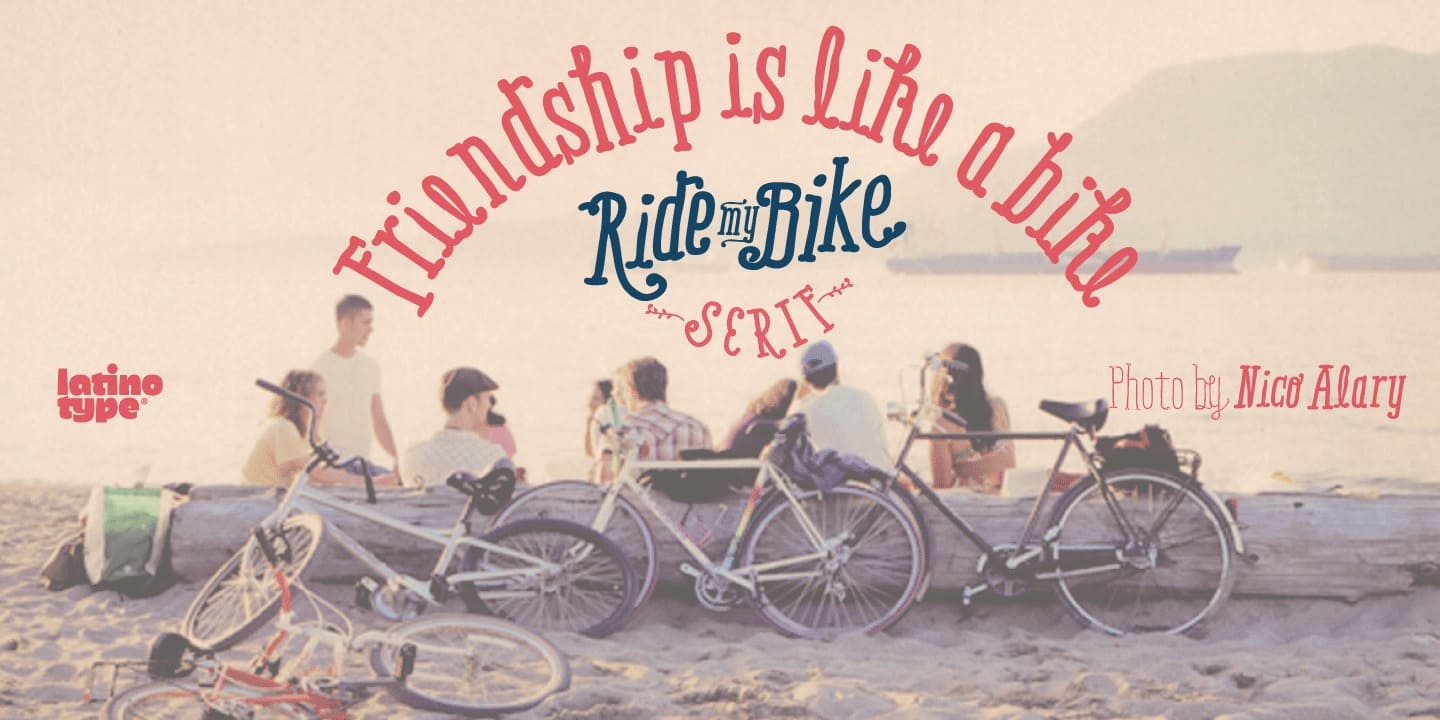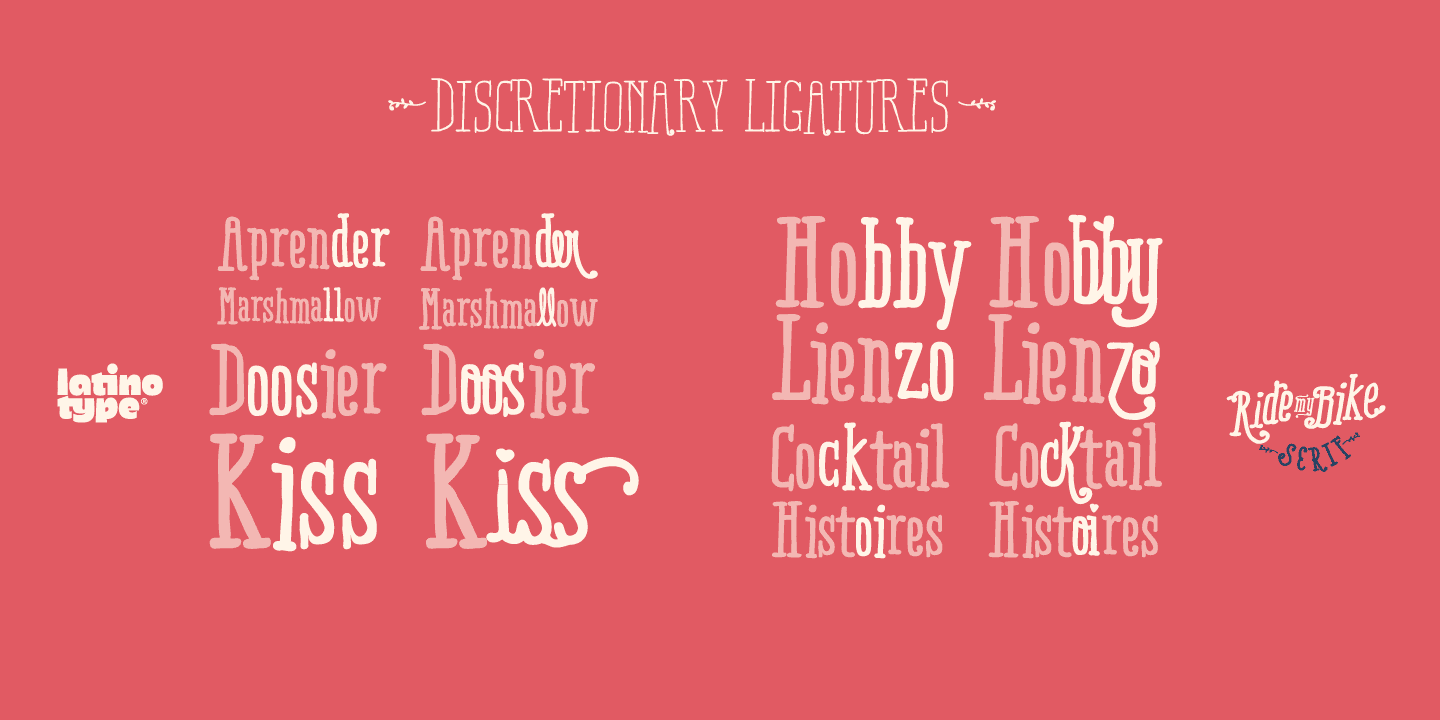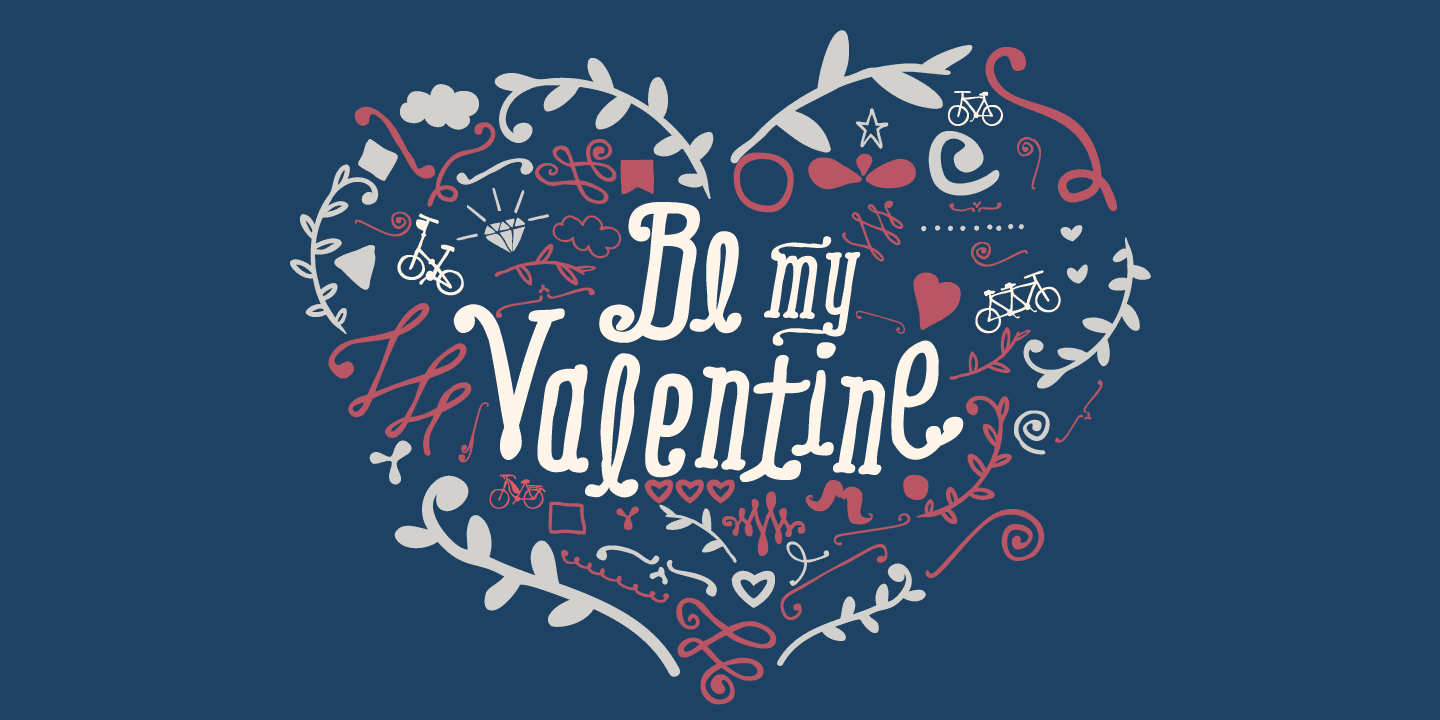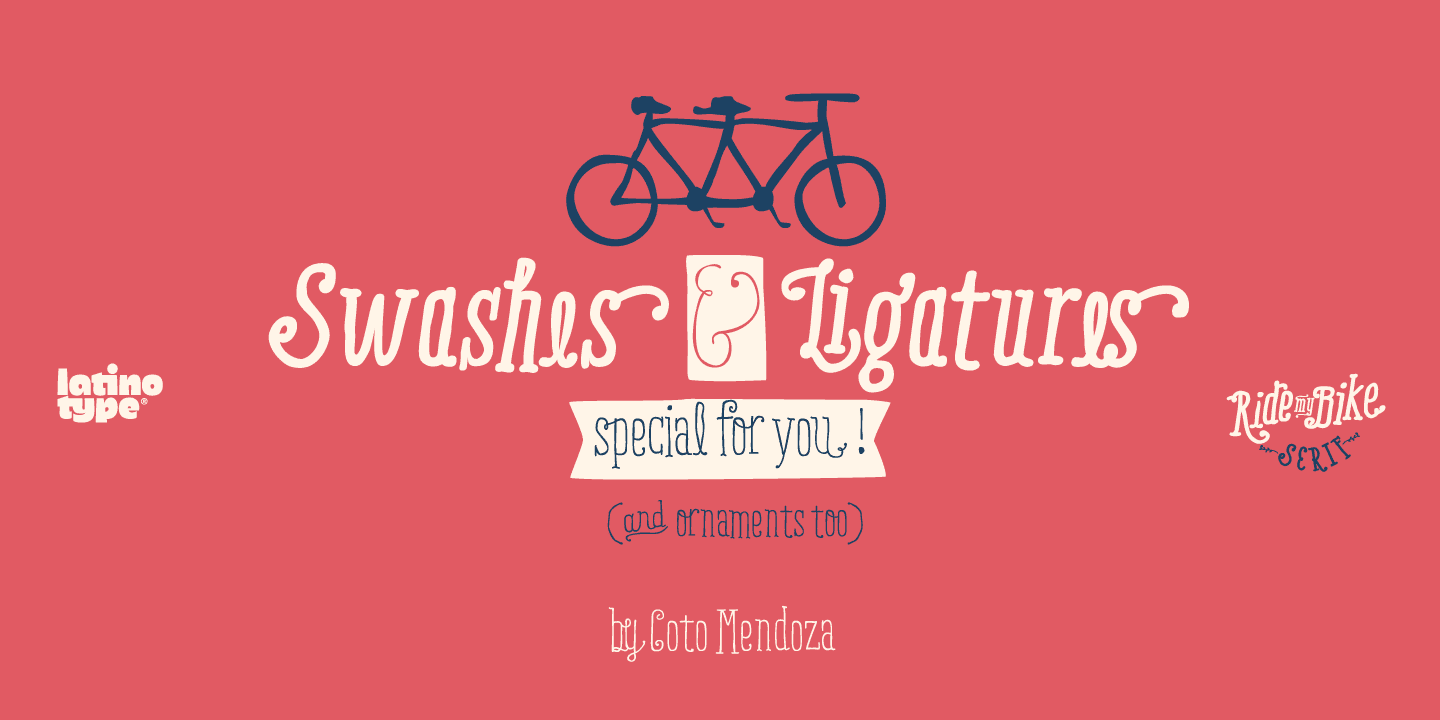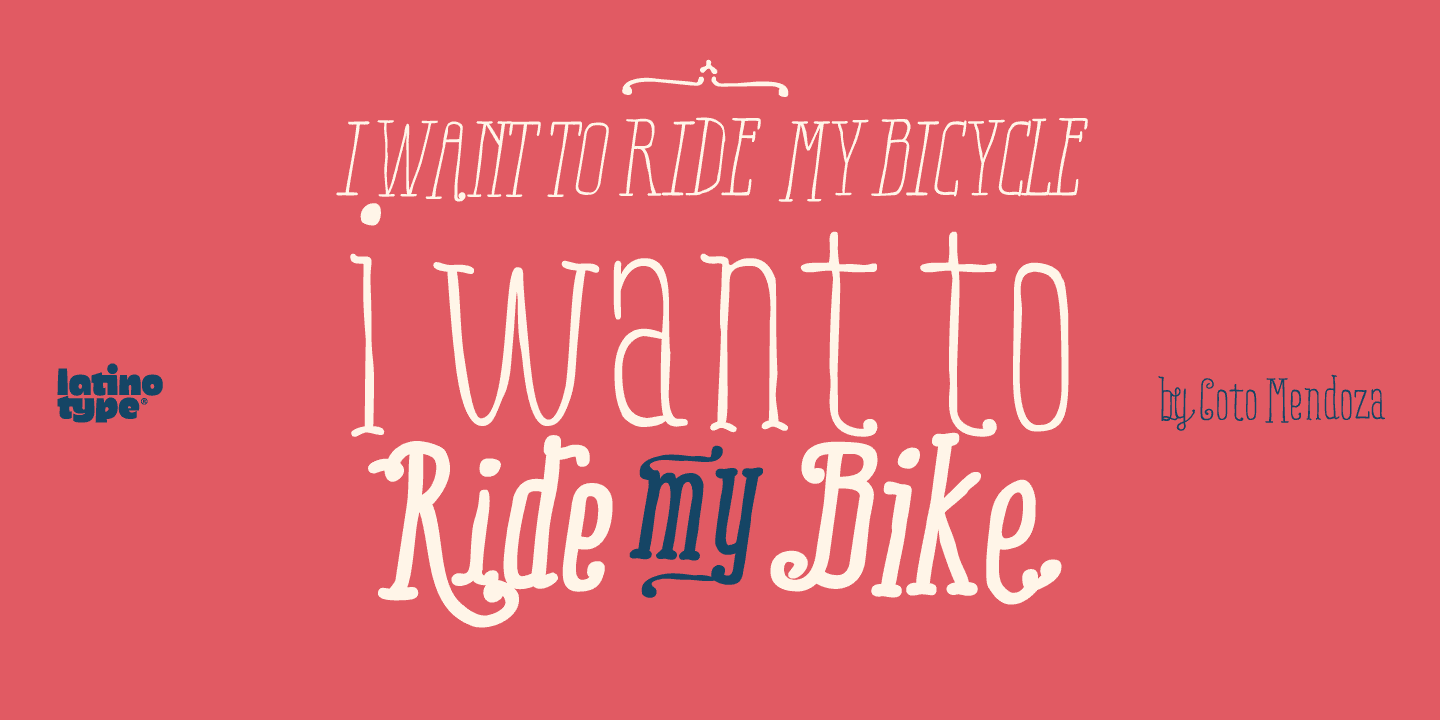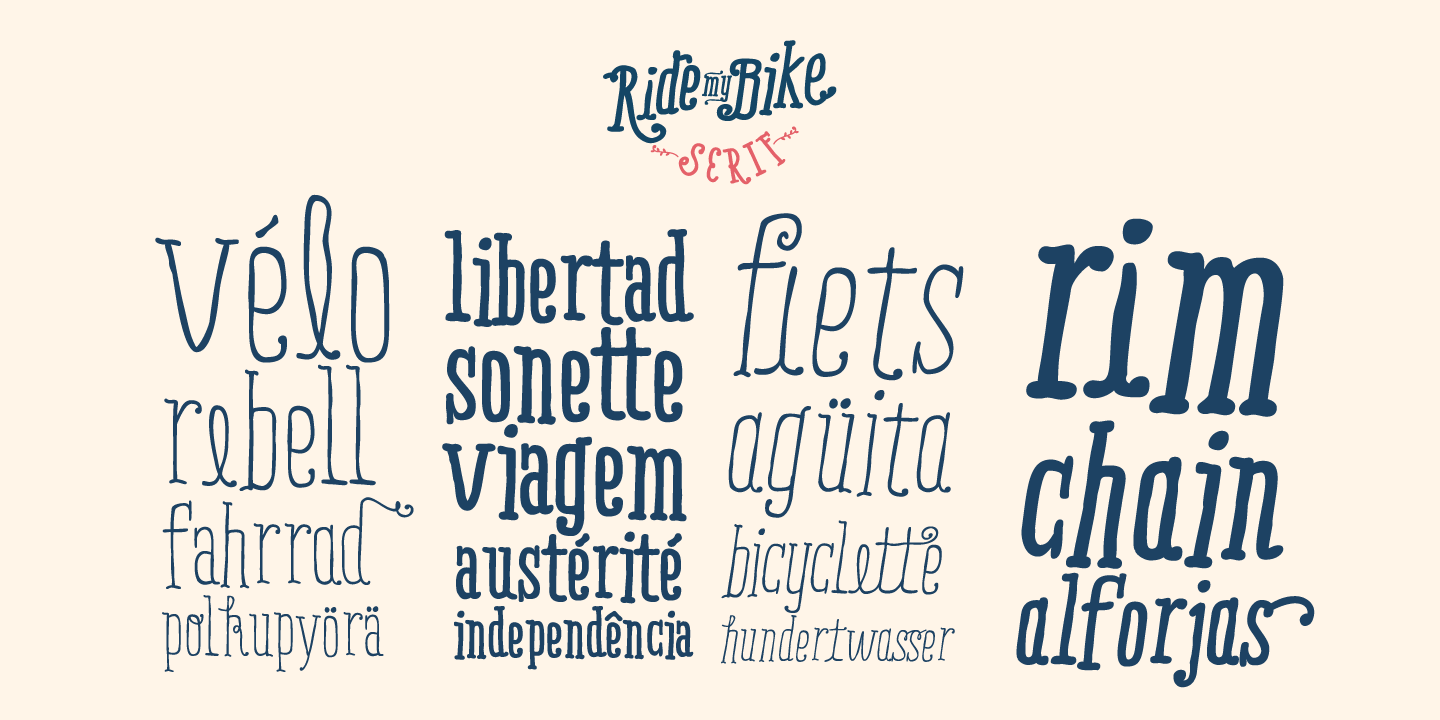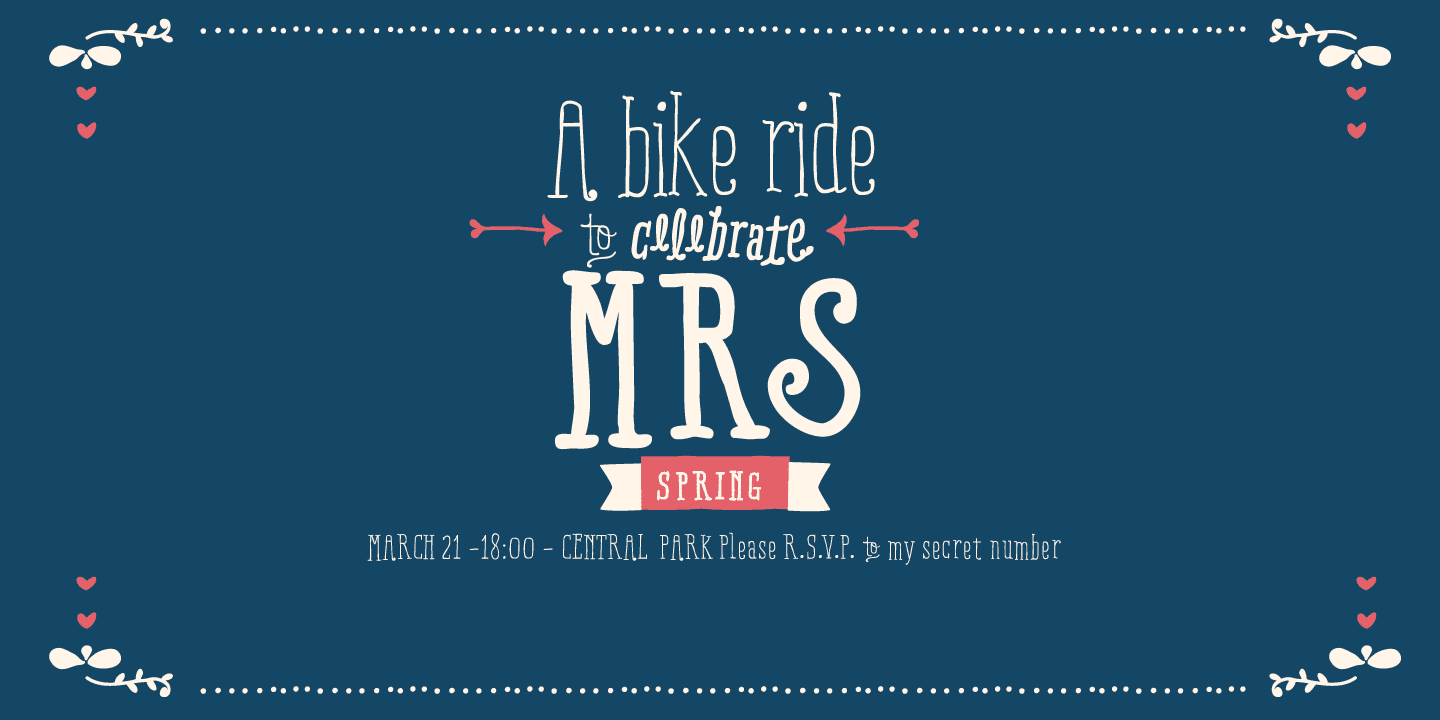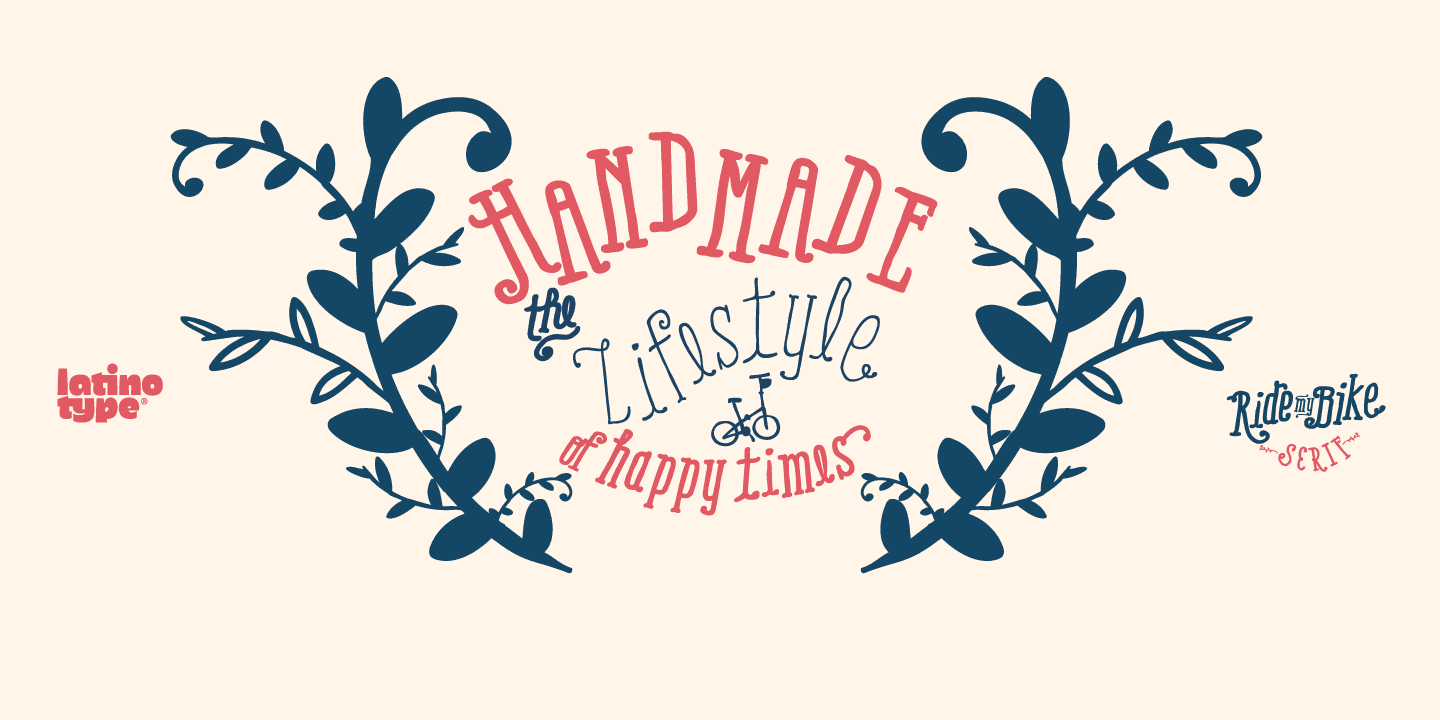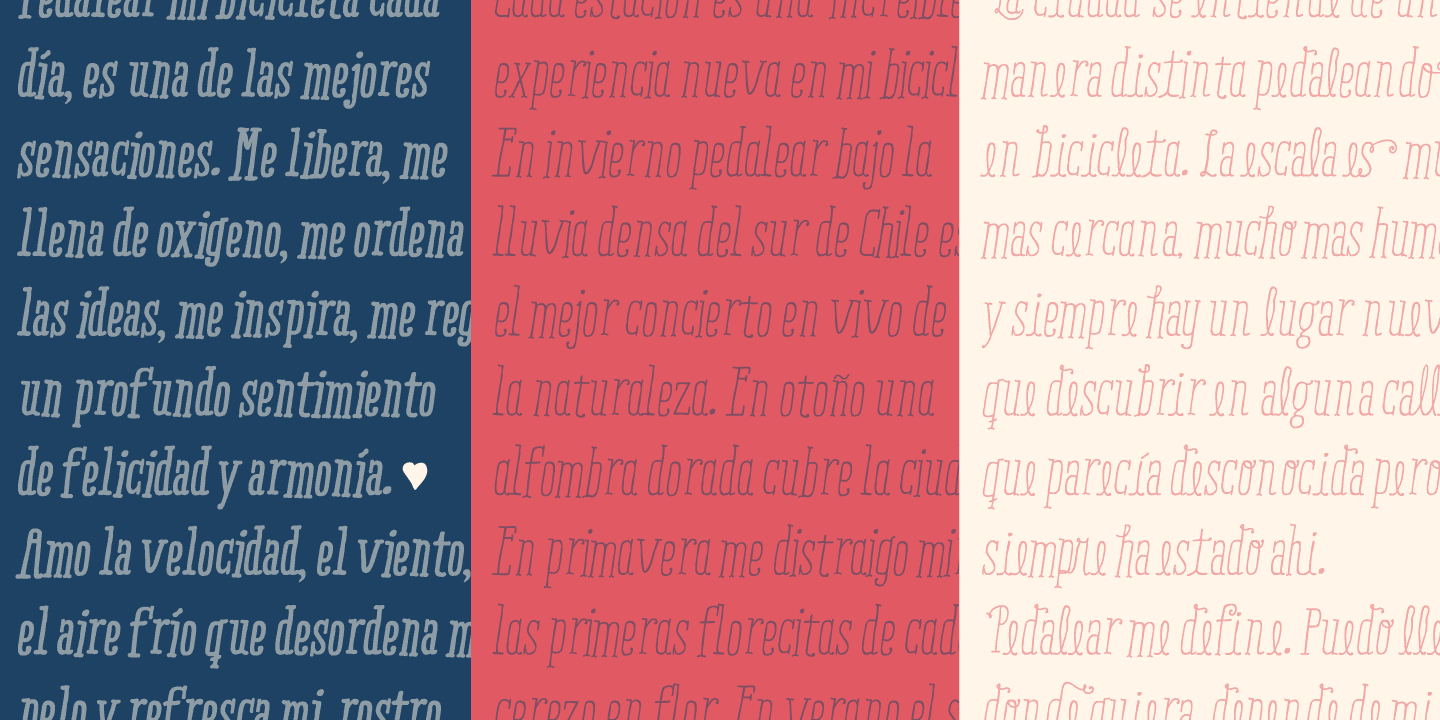
Ride my Bike Serif PRO Family (5 fonts)
The Ornaments font in this family has 121 dingbats, very fun to compliment and accentuate the handmade design.
Ligatures, Discretionary Ligatures, Alternates, Swash, Superscript